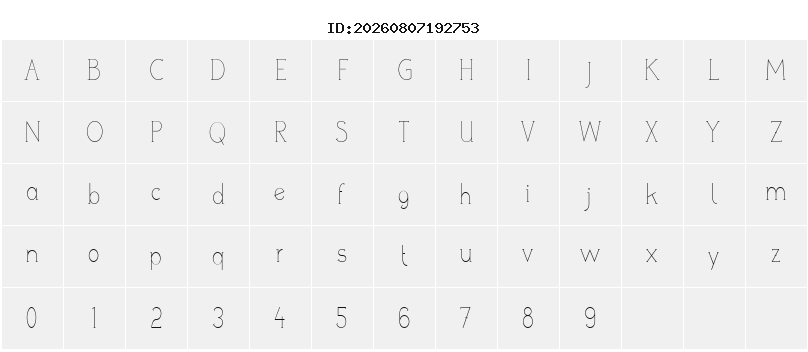
poor weekdays serif Preview
• Font Name: poor weekdays serif
• Full Font Name: poor weekdays serif
• Designer: Roland Huse
• Manufacturer: Roland Huse
About poor weekdays serif.ttf
poor weekdays serif.ttf is a modern, elegant sans-serif font designed for ultimate readability and visual harmony. Perfect for branding, headlines, web design, and print materials.